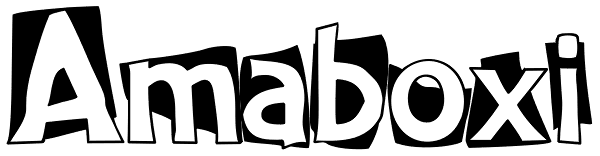
Amaboxi
In Amaboxi the upper-case letters are all placed upon a background inspired by the cardboard boxes that many people in Africa use to carry their possessions. The box takes its shape from the character and conversely, the character is influenced by...